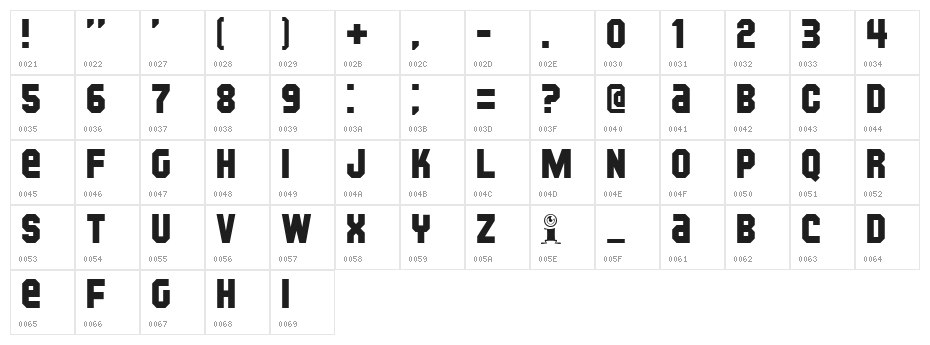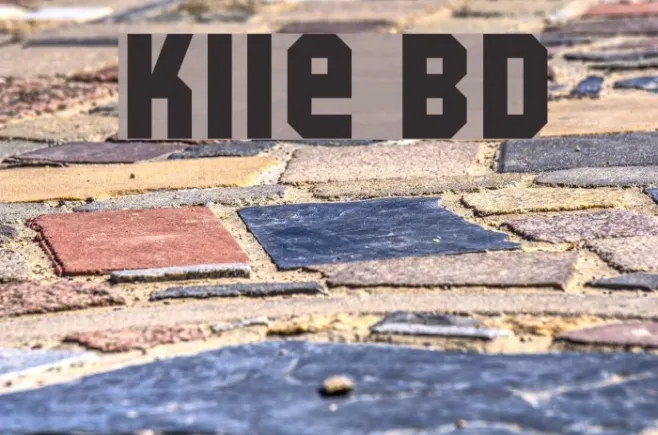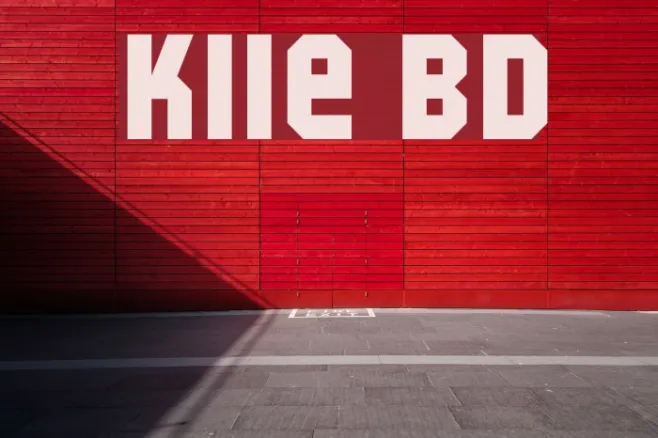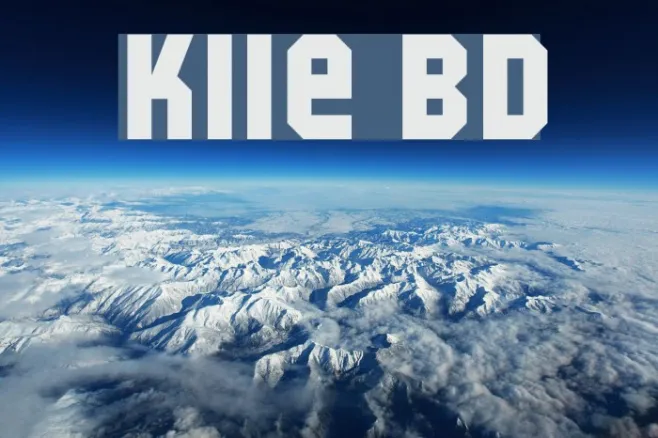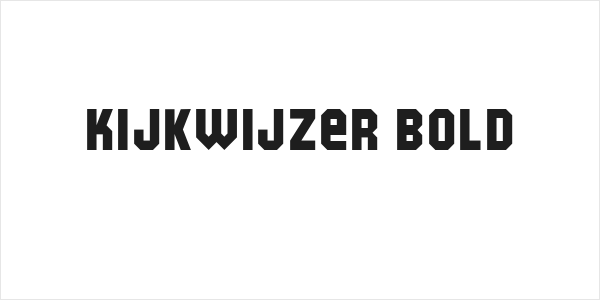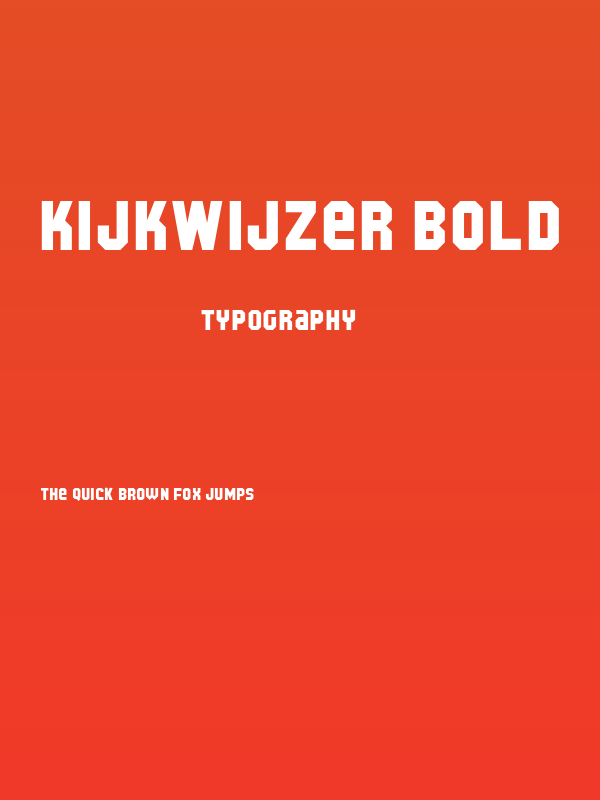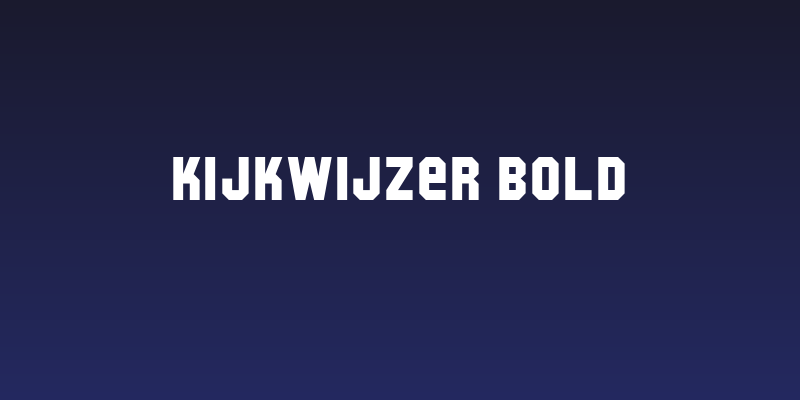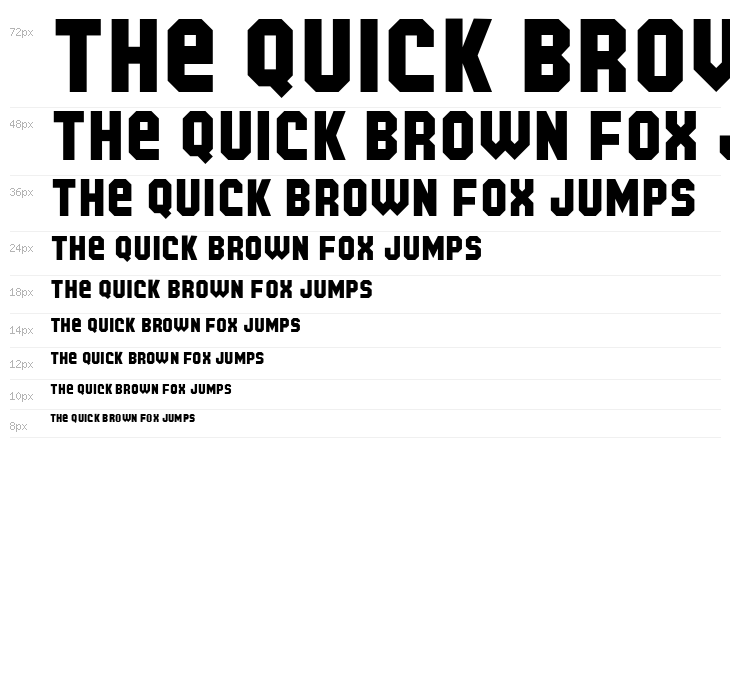
Kijkwijzer Bold Font
Kijkwijzer Bold Description
This font features a bold, geometric design with strong, angular lines and a modern aesthetic. The characters are uniformly thick, creating a sense of solidity and impact. The uppercase and lowercase letters maintain a consistent style, with sharp edges and a blocky appearance. The numerals and special characters follow the same design principles, ensuring a cohesive look across all elements. This font's boldness and clarity make it highly legible, even at smaller sizes, while its unique style adds a distinctive touch to any project.